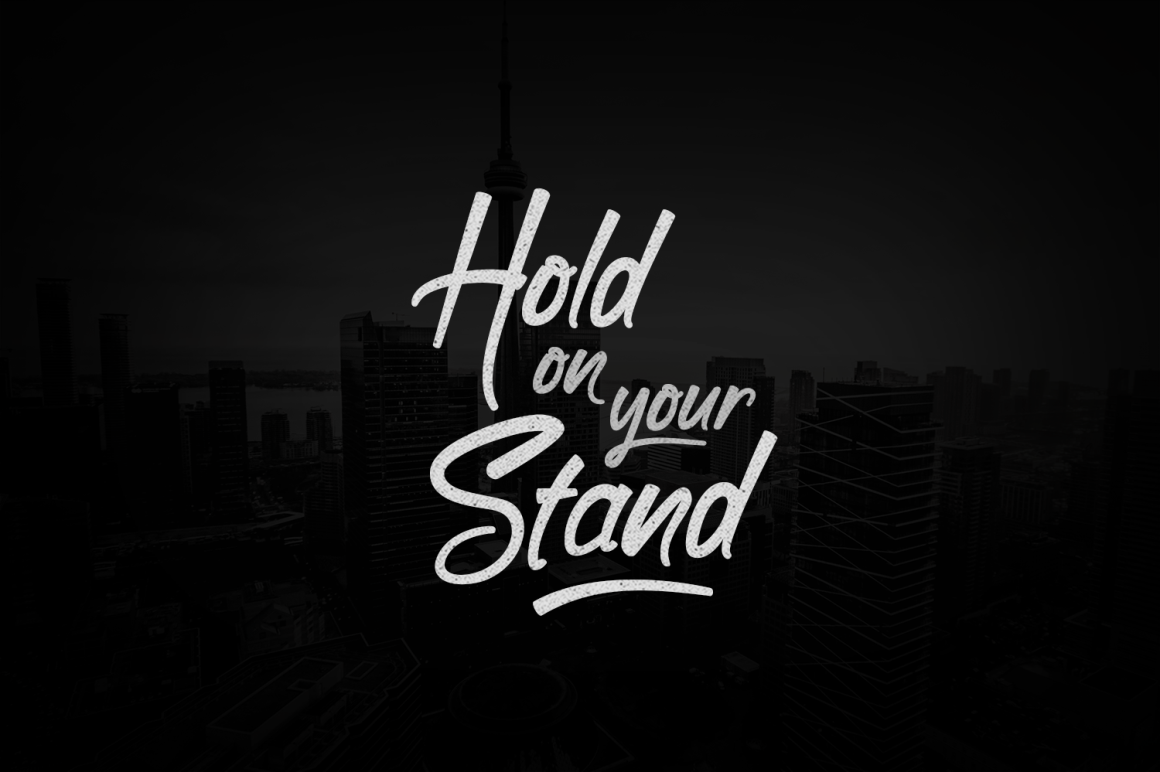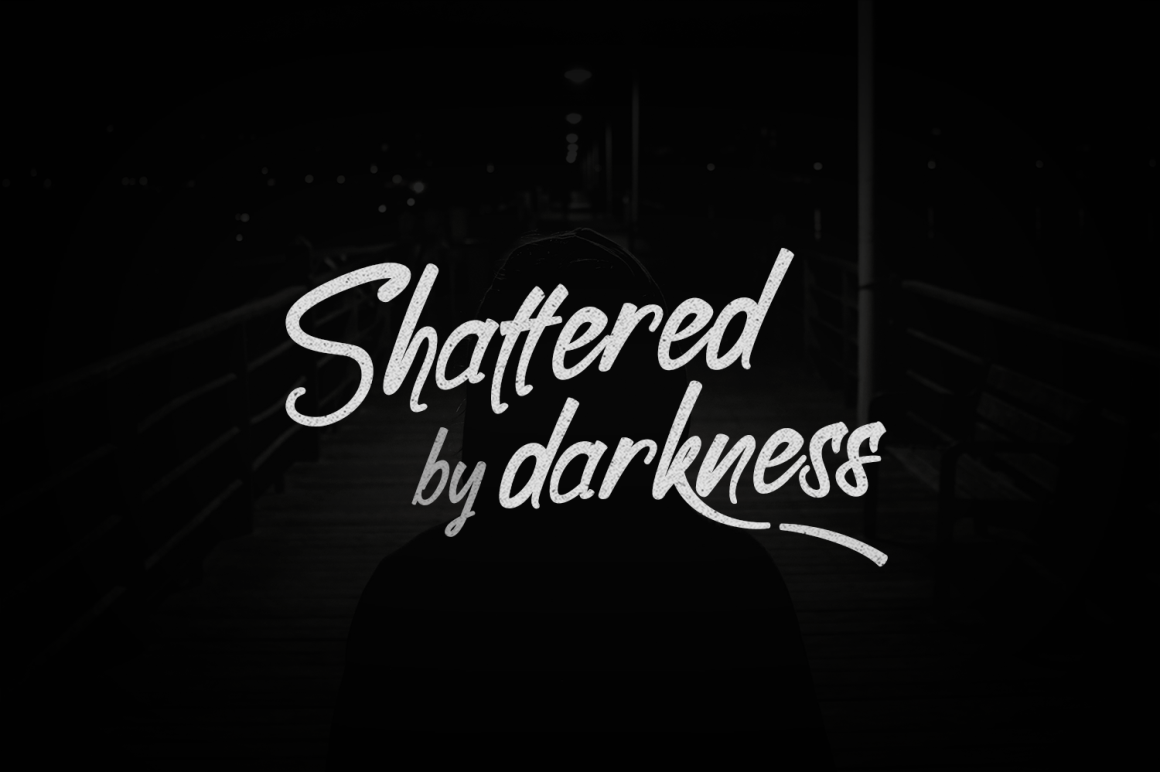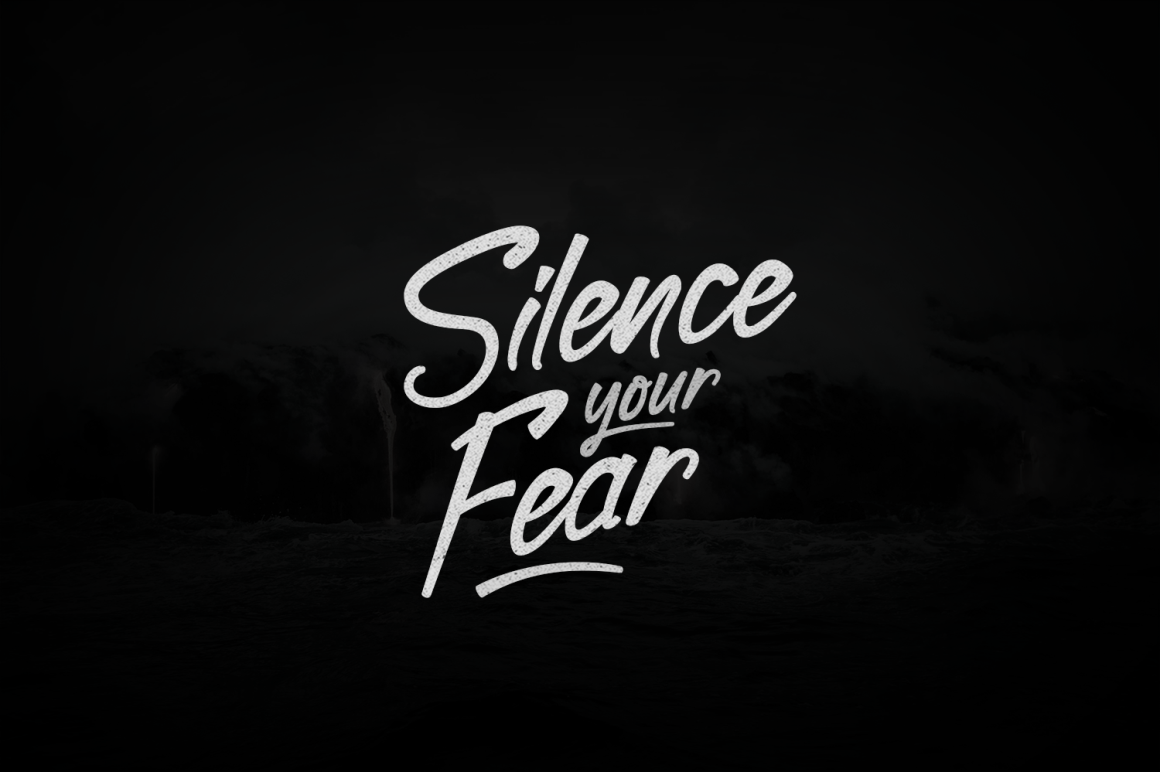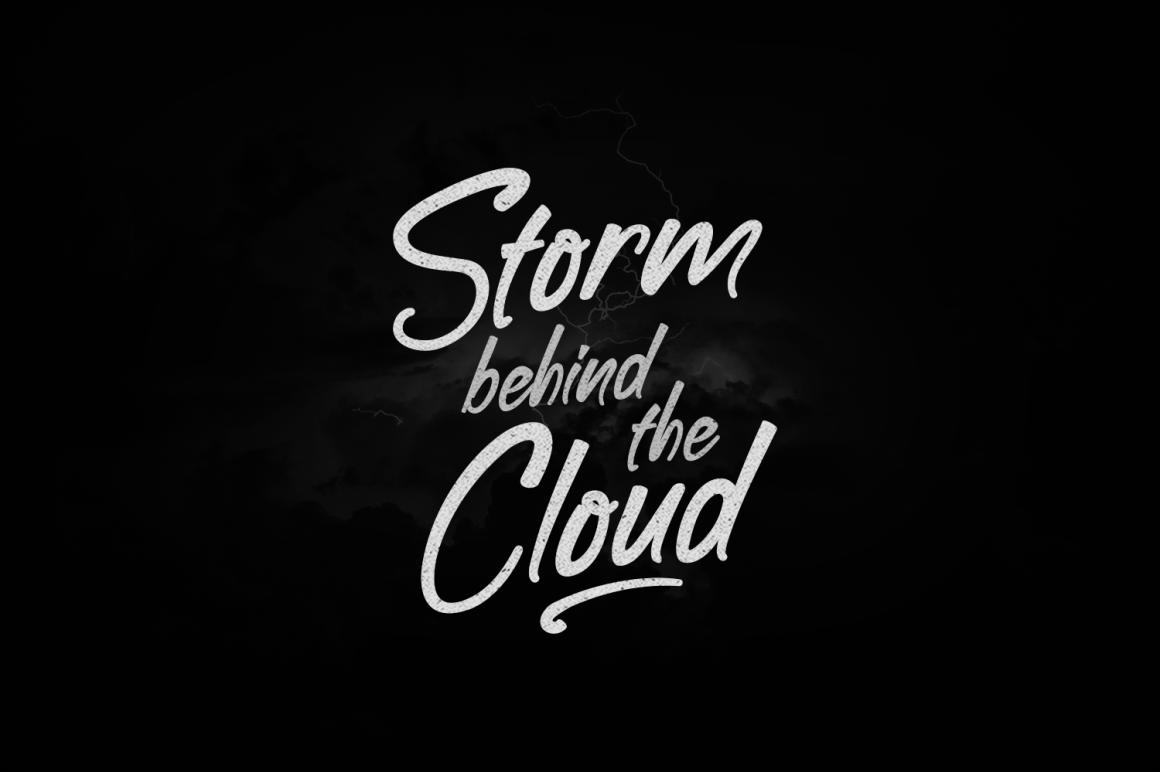
Introducing Boolack Font: The Ultimate Bold Script Font for Impactful Designs
Are you tired of using the same old fonts for your designs? Look no further! Boolack Font is here to revolutionize your typography with its bold, beautiful, and script-like style. This stunning font is perfect for designers and crafters who want to make a statement with their designs. In this article, we’ll dive into the features and benefits of Boolack Font, and explore how it can elevate your designs to the next level.
What is Boolack Font?
Boolack Font is a bold script font that is designed to make a statement. Its unique and elegant style makes it ideal for outspoken designs and headline type. With its bold and eye-catching appearance, Boolack Font is perfect for designers who want to grab the attention of their audience. Whether you’re working on a logo, brochure, or website, this font is sure to make your design stand out.
Key Features of Boolack Font
So, what makes Boolack Font so special? Here are some of its key features:
- Bold and Beautiful: Boolack Font is a bold script font that is designed to make a statement. Its elegant style and bold appearance make it perfect for headline type and outspoken designs.
- Alternates for Unique Designs: Boolack Font comes with alternates that allow you to create unique and impactful designs. With multiple variations to choose from, you can experiment with different styles to find the one that works best for your design.
- Versatile: Boolack Font is bold enough to be used in different design landscapes. Whether you’re working on a logo, brochure, or website, this font is sure to make your design stand out.
Benefits of Using Boolack Font
So, why should you use Boolack Font for your designs? Here are some benefits of using this amazing font:
- Grabs Attention: Boolack Font is designed to grab attention. Its bold and eye-catching appearance makes it perfect for headline type and outspoken designs.
- Elevates Your Design: Boolack Font can elevate your design to the next level. Its elegant style and bold appearance make it perfect for creating stunning designs that leave a lasting impression.
- Versatile: Boolack Font is versatile and can be used in different design landscapes. Whether you’re working on a logo, brochure, or website, this font is sure to make your design stand out.
How to Use Boolack Font
Using Boolack Font is easy! Here are some tips on how to get the most out of this amazing font:
- Pair it with Other Fonts: Boolack Font can be paired with other fonts to create a stunning design. Experiment with different font combinations to find the one that works best for your design.
- Use it for Headline Type: Boolack Font is perfect for headline type. Use it to grab attention and make a statement with your design.
- Experiment with Alternates: Boolack Font comes with alternates that allow you to create unique and impactful designs. Experiment with different variations to find the one that works best for your design.
In conclusion, Boolack Font is a beautiful and bold script font that is perfect for designers and crafters who want to make a statement with their designs. Its elegant style, bold appearance, and alternates make it ideal for outspoken designs and headline type. With its versatility and ease of use, Boolack Font is sure to elevate your designs to the next level. So, what are you waiting for? Download Boolack Font today and start creating stunning designs that leave a lasting impression!